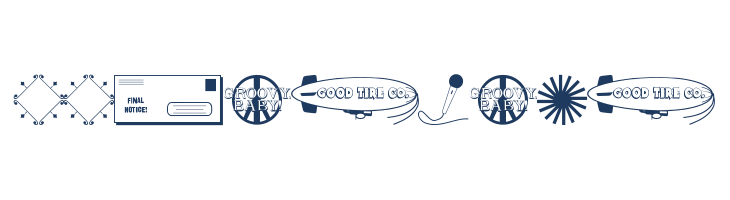
Mixed Bag O' Dings JL Font
Mixed Bag O' Dings JL Description
A highly eclectic dingbat collection featuring a wide variety of black and white illustrations, including musical instruments, hands, signs, flowers, clouds, retro objects, and playful icons. Each character is represented by a unique pictogram rather than a traditional letterform.
A diverse set of illustrated dingbats with a playful and retro vibe from Dingbats fonts.
- Proposed Projects: Posters, flyers, scrapbooking, invitations, decorative borders, educational materials, creative projects.
- Overall Style: Playful, Retro, Eclectic, Decorative
- Use Case: Decorative elements, icons, embellishments, creative headings.